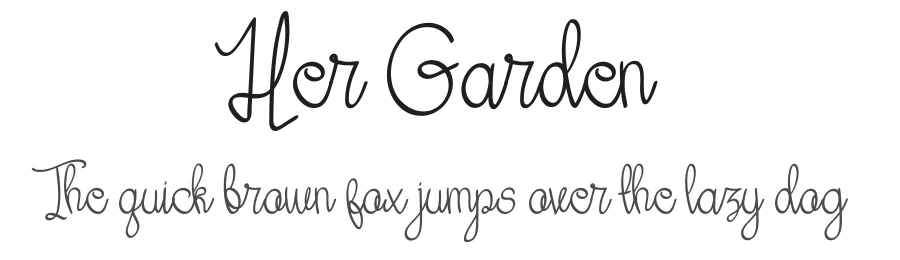
1 / 7About Her Garden Font
Her Garden by Mojibam is a flowing handwritten script that brings natural sophistication to your typography needs. The font features graceful letterforms with decorative swash variations that add movement and visual interest to any design project. Whether you're creating wedding invitation suites, designing custom Etsy product labels, or developing boutique skincare packaging, Her Garden delivers the refined elegance these projects demand. The alternates and flourish options give you the flexibility to adjust letterforms and stylistic choices across different text passages, allowing for personalization without changing fonts.
Beyond luxury packaging and stationery design, Her Garden excels for DIY craft signs, personalized greeting cards, and branded social media graphics that benefit from a more organic, artistic aesthetic. The script's flowing character makes it equally effective for logotypes and header text where traditional typefaces lack personality. Its handwritten quality creates an approachable sophistication that feels both contemporary and timeless, making it the right choice for lifestyle brands, boutique restaurants, wellness companies, and feminine product lines. The font achieves a careful balance between ornamental flourish and readability, ensuring your message comes through clearly even at smaller sizes or in digital applications. This versatility means Her Garden works across multiple design contexts, from print to screen.
Her Garden Font is a script font that shines as a display or heading face. Pair it with a clean sans-serif or serif font for body text β the contrast creates a clear hierarchy while the two styles stay balanced and easy to read.
Her Garden Font
by Mojibam